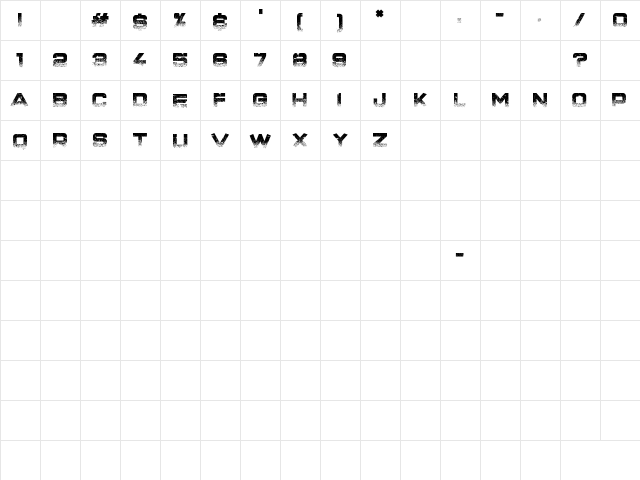
Ghost Factory Regular
Design Context for Ghost Factory Typeface
Ghost Factory is a composed and adaptable typeface that performs quietly and consistently across a wide range of design contexts.